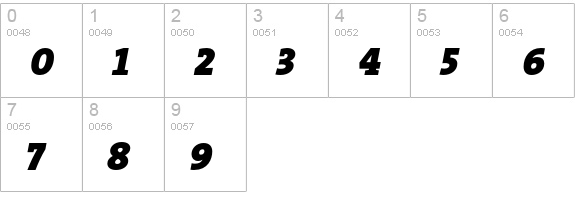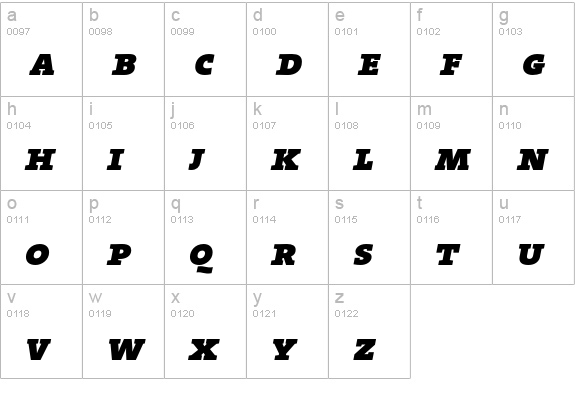
TheSerif Black Caps Italic is a maximum-weight, dramatic, italic variant in the TheSerif typeface family \xE2\x80\x94 well suited to maximum-impact headlines, posters, and packaging.
TheSerif Black Caps Italic is a stunning and elegant font that exudes sophistication and professionalism. With its bold and stylish design, this font is perfect for creating eye-catching headlines, logos, and titles that demand attention. Featuring sleek and sharp letterforms, TheSerif Black Caps Italic adds a touch of class to any design project. Its unique italicized style adds a sense of dynamism and movement, making it an ideal choice for projects that require a touch of modernity and creativity. This font is not only visually captivating but also highly versatile. It can be used in a wide range of design applications, including advertising, branding, packaging, and editorial design. Its bold and commanding presence ensures that your message stands out and leaves a lasting impression on your audience. TheSerif Black Caps Italic is freely available for download at FontsMarket.com. This means that you can easily access and use this font without any restrictions. Whether you are a professional designer or a beginner, this font provides you with the opportunity to elevate your designs without breaking the bank. With TheSerif Black Caps Italic, you have the power to create captivating and visually stunning designs that make a statement. Its bold and artistic nature allows you to express your creativity and add a touch of sophistication to your projects. Download TheSerif Black Caps Italic today and unlock a world of design possibilities.